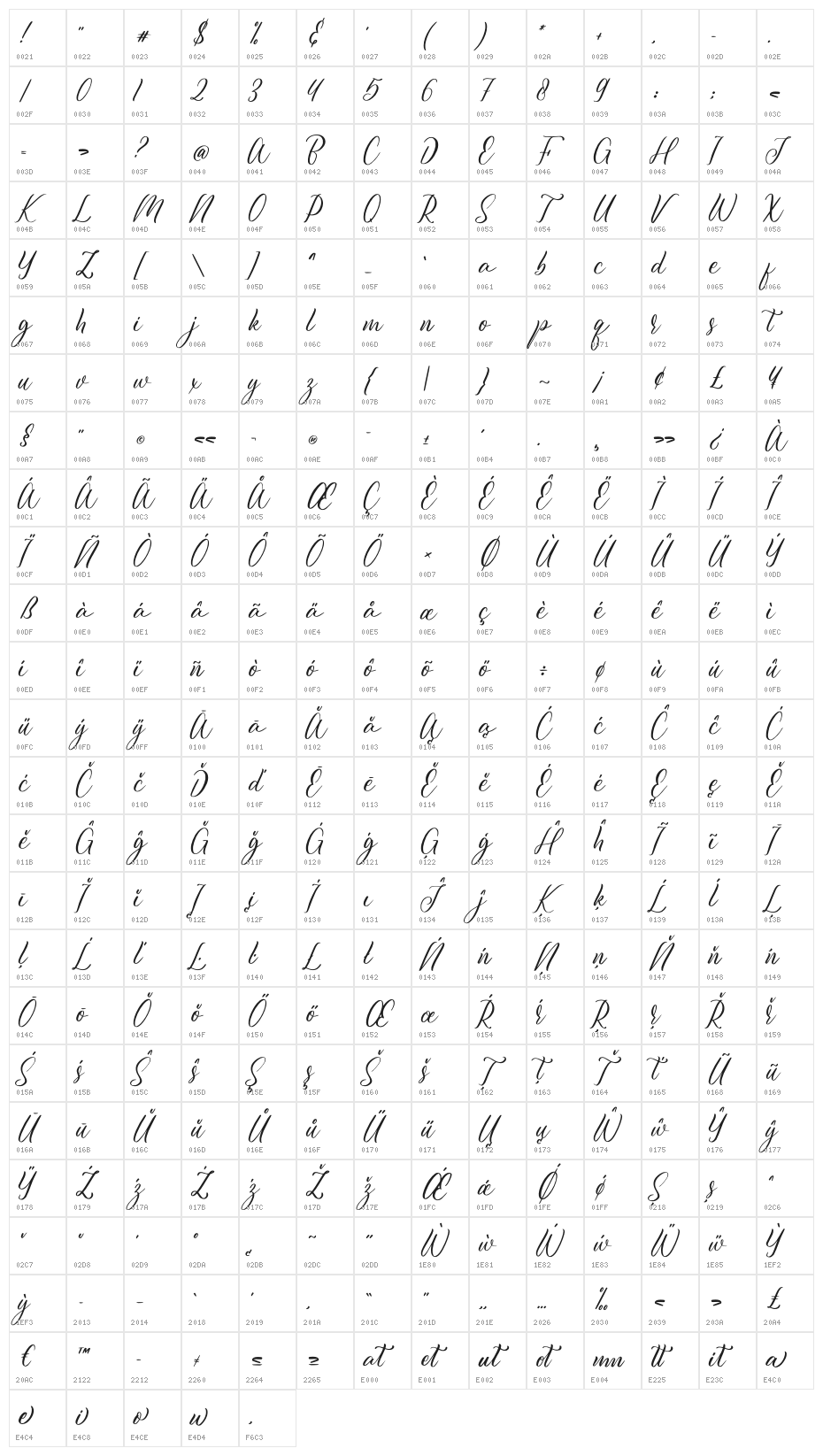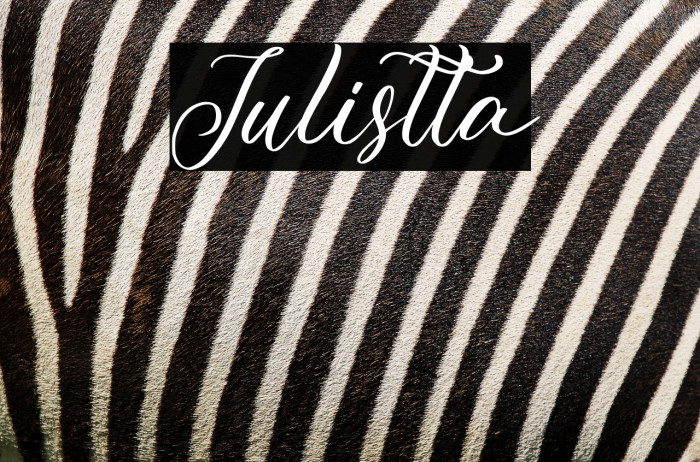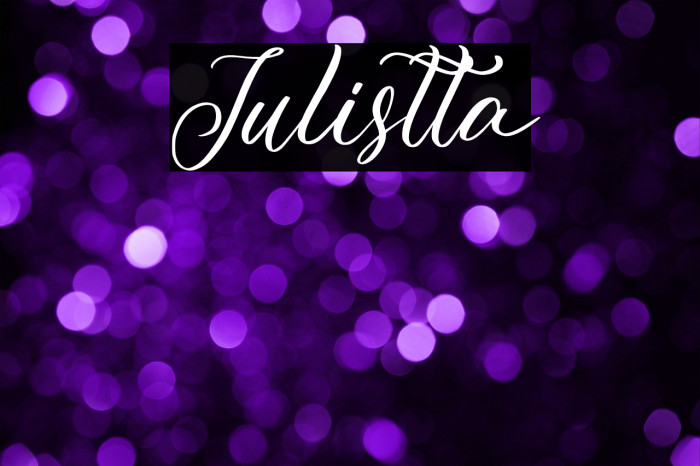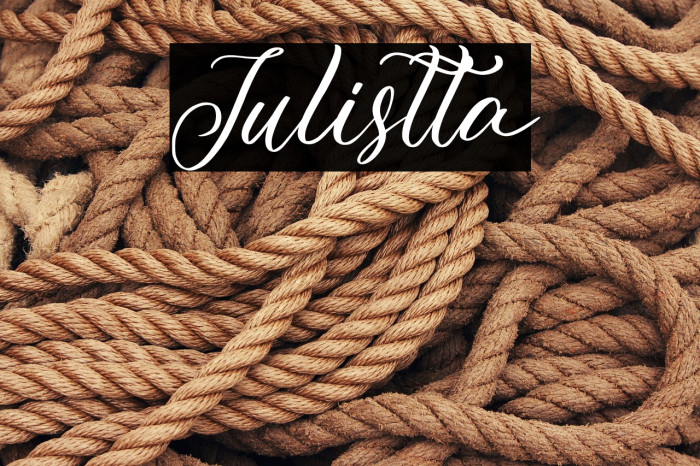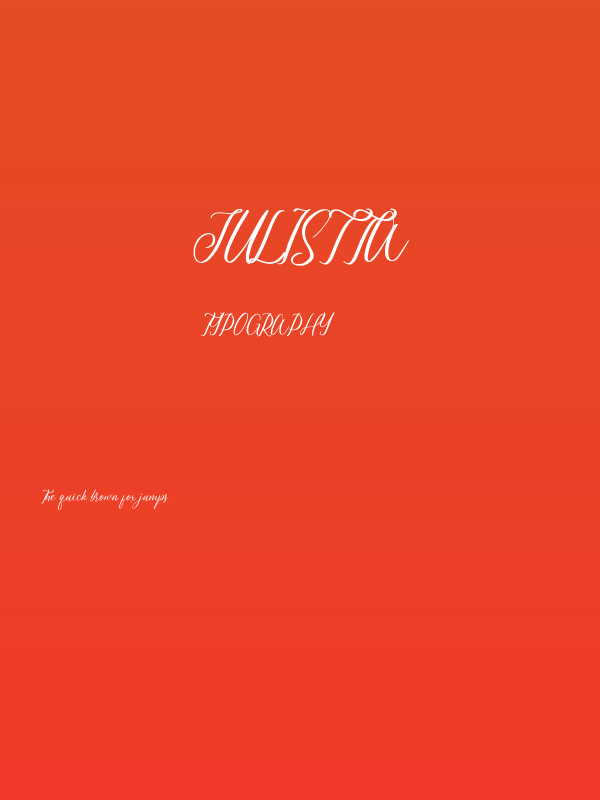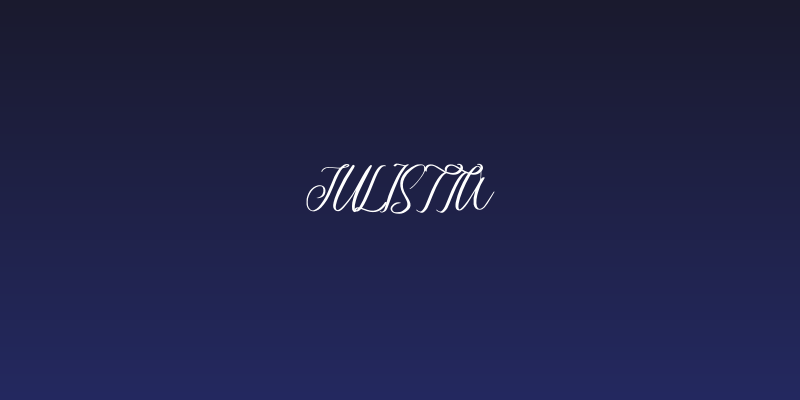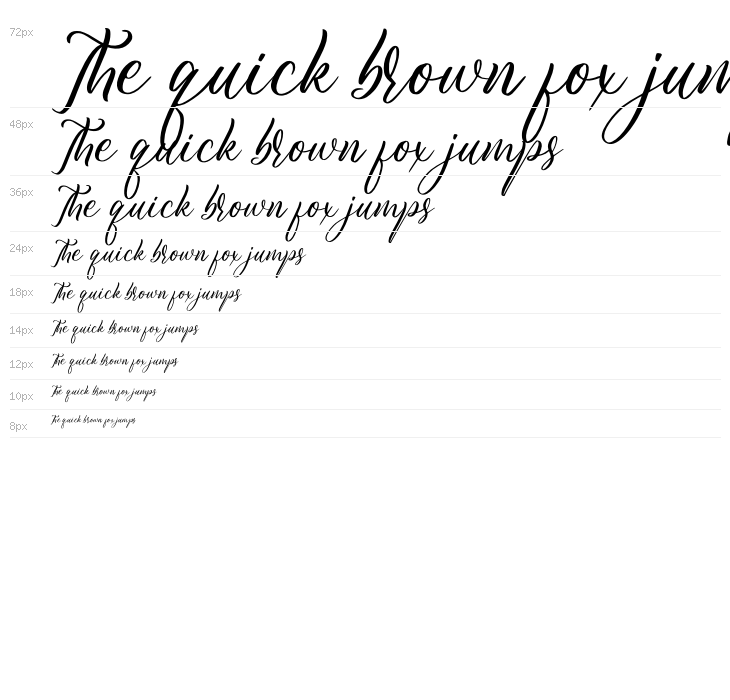
Julistta Font
Julistta Description
This elegant script font features flowing, interconnected letters that evoke a sense of sophistication and grace. The uppercase letters are bold and sweeping, with dramatic flourishes that add a touch of flair. The lowercase letters maintain a consistent style, with smooth curves and delicate loops that enhance readability while maintaining an artistic appearance. The numerals are designed to match the overall aesthetic, with a slight slant and refined curves. Special characters are thoughtfully integrated, ensuring versatility in various design contexts. This font is ideal for projects that require a touch of elegance and creativity.
Overall StyleElegant
Use CaseLogos, Invitations, Decorative text
Proposed ProjectsIdeal for wedding invitations, elegant branding, greeting cards, and upscale packaging.